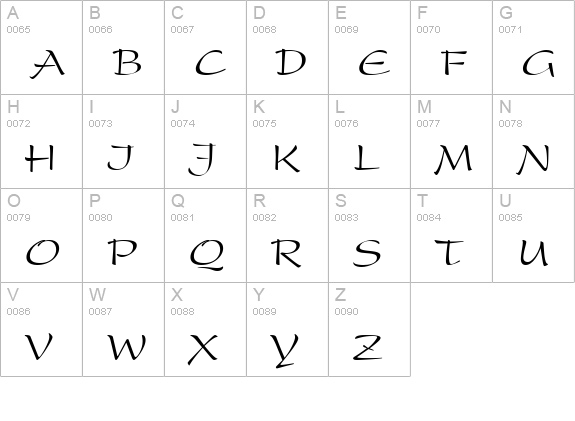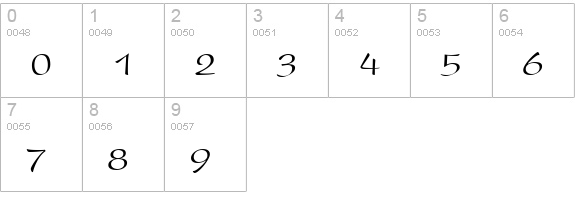
Snippet Script SSi Font Details
Introducing Snippet Script SSi, a stunningly beautiful font that combines elegance and playfulness. This versatile typeface is perfect for adding a touch of charm and sophistication to any design project. With its unique script style and flowing letterforms, Snippet Script SSi effortlessly conveys a sense of creativity and personality. What makes Snippet Script SSi even more remarkable is that it is available for free! That's right, this exceptional font can be downloaded at no cost from FontsMarket.com. Whether you're a professional designer or a hobbyist, this free font opens up a world of possibilities for your creative endeavors. With Snippet Script SSi, you can create eye-catching logos, captivating headlines, elegant wedding invitations, stylish branding materials, and much more. Its distinctive characters and fluid strokes bring a sense of movement and life to your designs, making them truly stand out from the crowd. The legibility and versatility of Snippet Script SSi make it suitable for a wide range of applications. From digital designs to printed materials, this font adapts effortlessly to various mediums, ensuring that your message is conveyed effectively. Whether you're designing for a client or simply exploring your own creative projects, Snippet Script SSi is the perfect font to add a touch of elegance and sophistication. And the best part? It's free! Don't miss out on this opportunity to enhance your designs with this exceptional font. Download Snippet Script SSi today at FontsMarket.com and let your creativity shine.